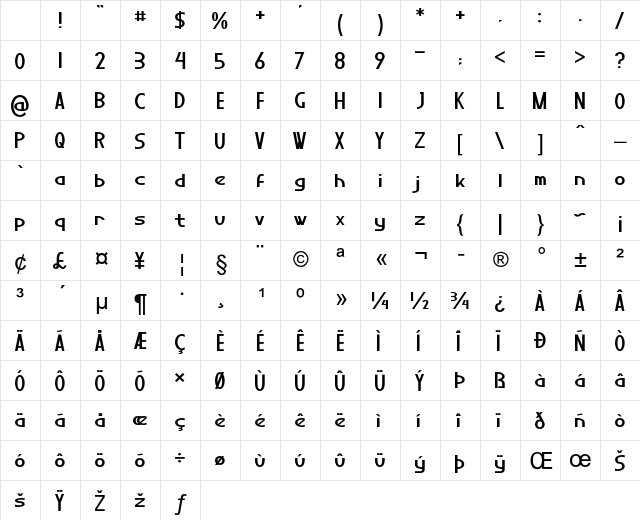
Complete Pathos Bold glyph index. Displaying only characters natively supported by Pathos Bold font.
Pathos is a composed and adaptable typeface that performs quietly and consistently across a wide range of design contexts. Its bold stroke weight gives it real presence on the page.